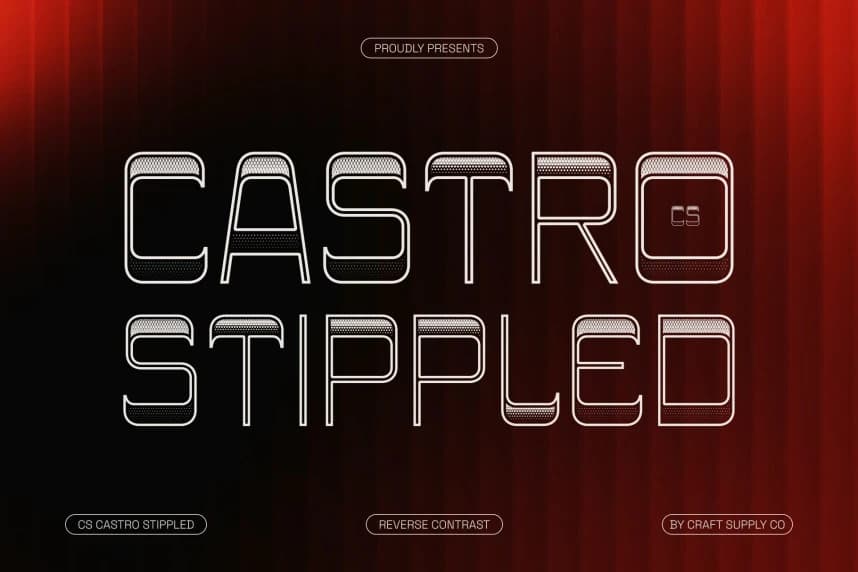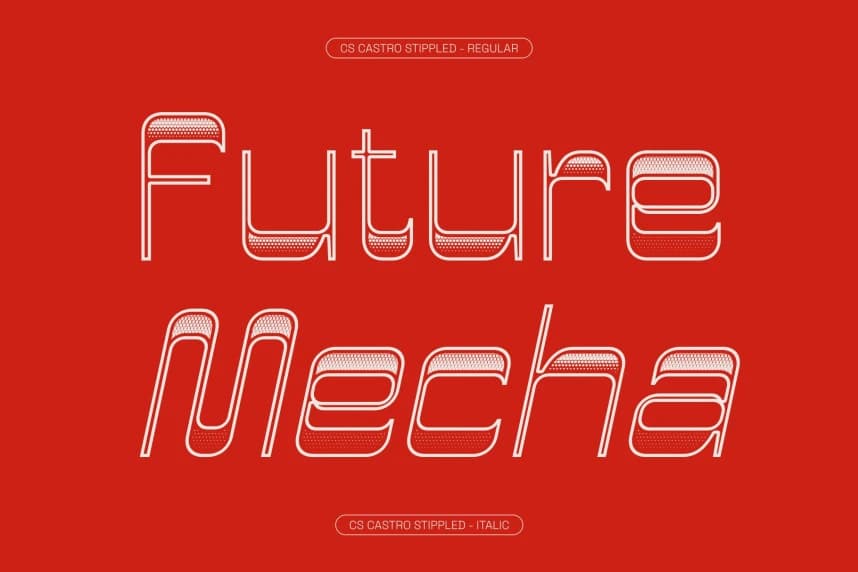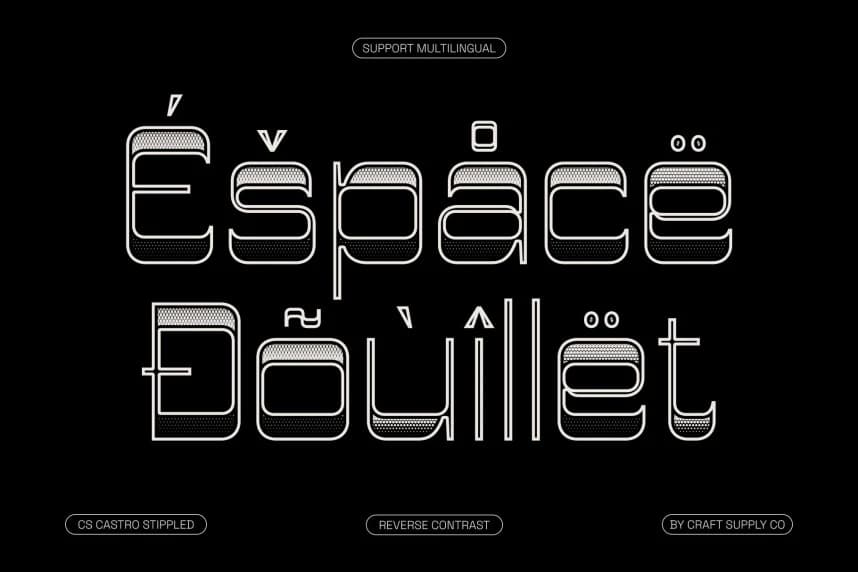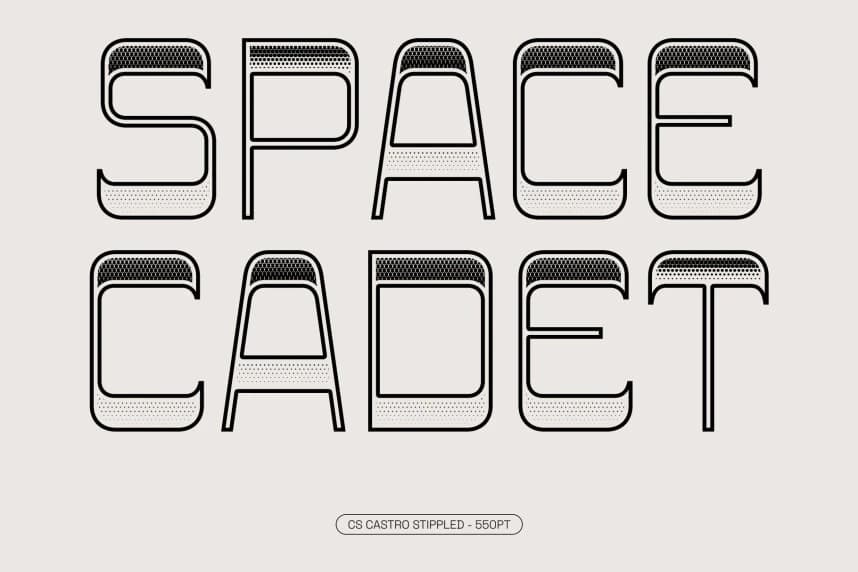
CS Castro Stippled Font
CS Castro Stippled Font – Reverse Contrast Font with Textured Retro Character Sans-Serif with Reverse Contrast Style. This is a distinctive sans-serif font that combines modern design principles with the unique visual rhythm of reverse contrast.